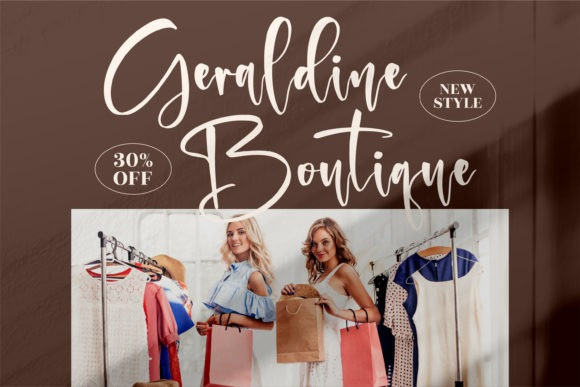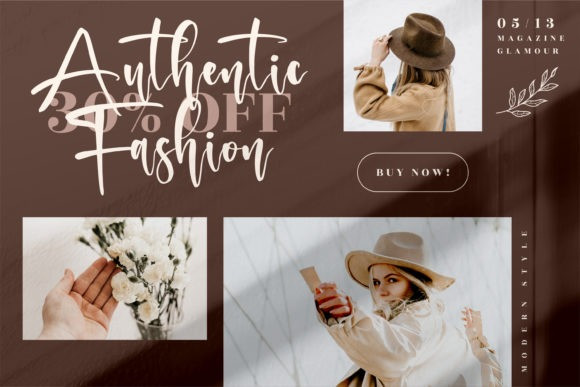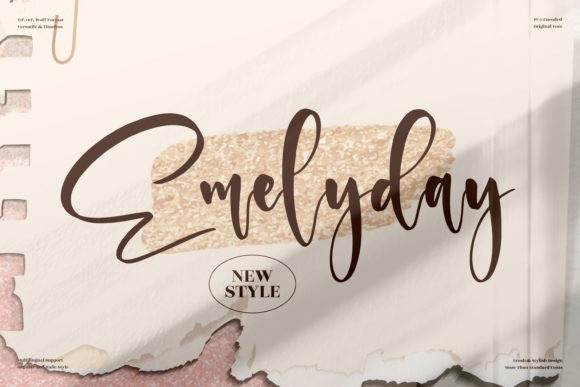
Emelyday Font
Emelyday is a thin lettered and graceful script font. Fall for its ravishing style and use it to create gorgeous wedding invitations, beautiful stationary art, eye-catching social media posts, and much more! Emelyday is PUA encoded which means you can access all glyphs and swashes with ease!